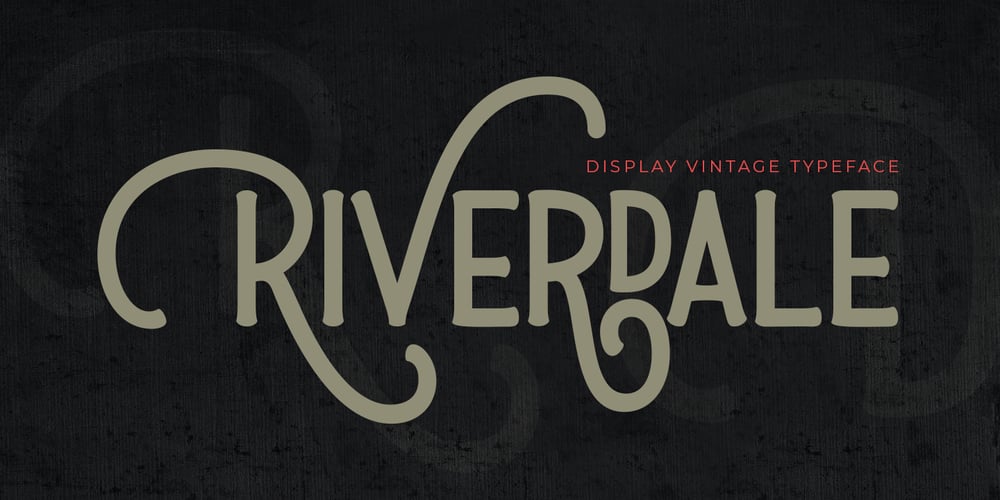
Riverdale Font Family was designed by BOYHAQI . and published by Unicode Studio. Riverdale contains 1 styles and family package options. Riverdale is a display type, with style retro, vintage, and classic, This font comes to give a classic feel for the designer to work on various projects. However, it is also suitable for other purposes such as headlines, insignia, badges, logos, wedding invitations, greeting cards, etc. With a combination of highly vintage feels and the OpenType features put together, you can easily create a harmonic attractive message for your design.Riverdale comes with 299 glyphs in total. The alternative characters were divided into several Open Type features such as Swash, Stylistic Sets, Stylistic Alternates, Contextual Alternates, and Ligatures. The Open Type features can be accessed by using Open Type savvy programs such as Adobe Illustrator, Adobe InDesign, Adobe Photoshop Corel Draw X version, And Microsoft Word. And this Font has given PUA Unicode (specially coded fonts). so that all the alternate characters can easily be fully accessed by a craftsman or designer through either Windows or Mac computers without any requirement for fancy design software.